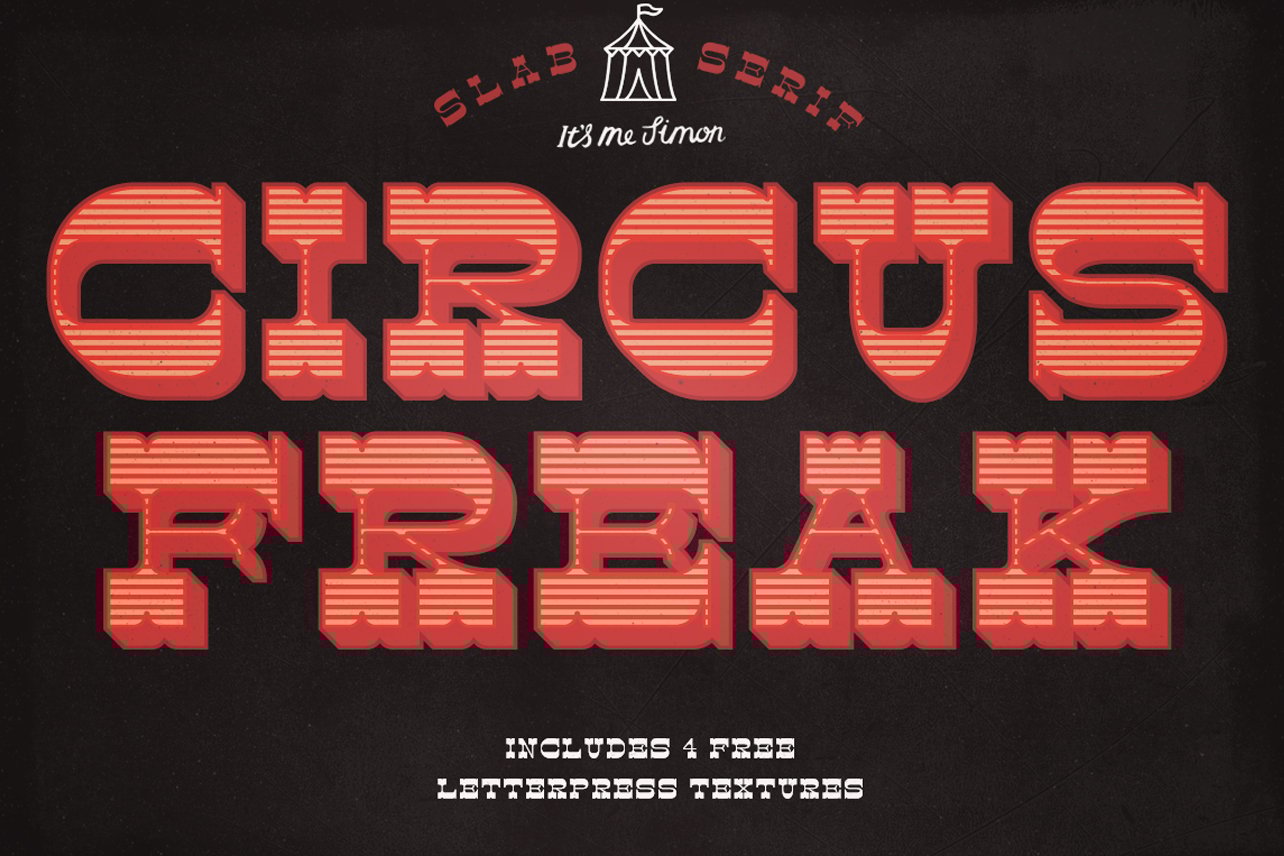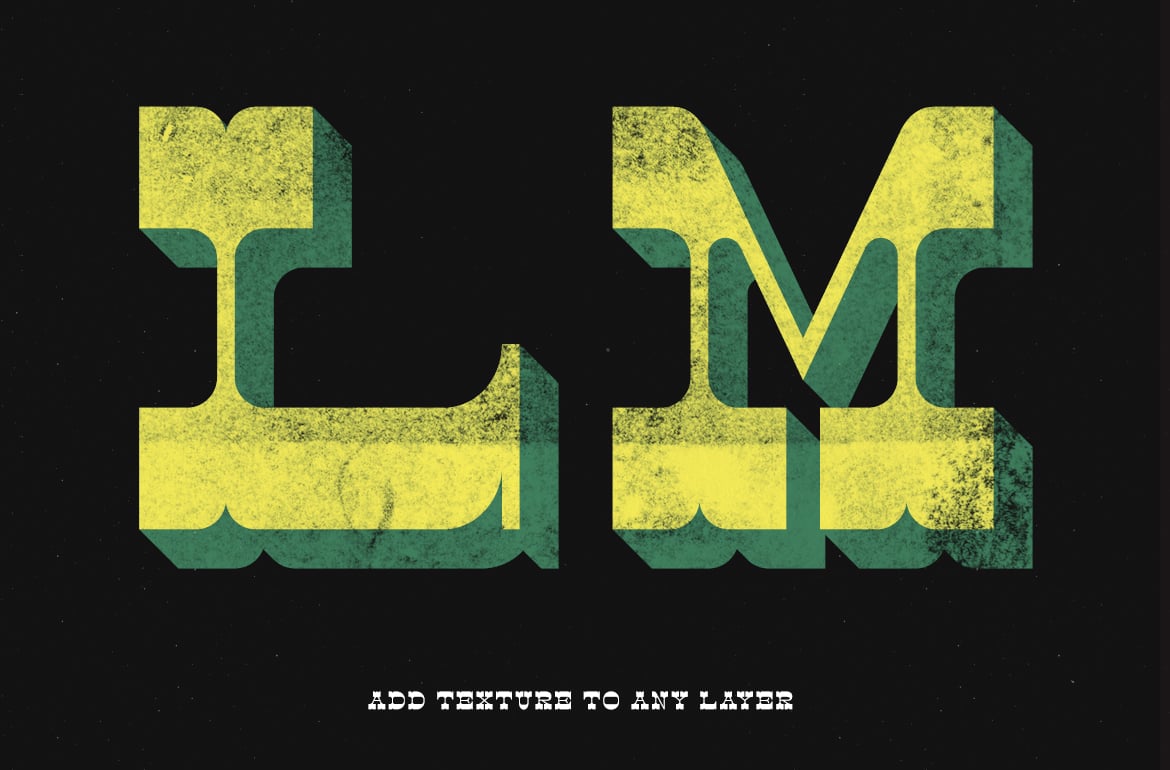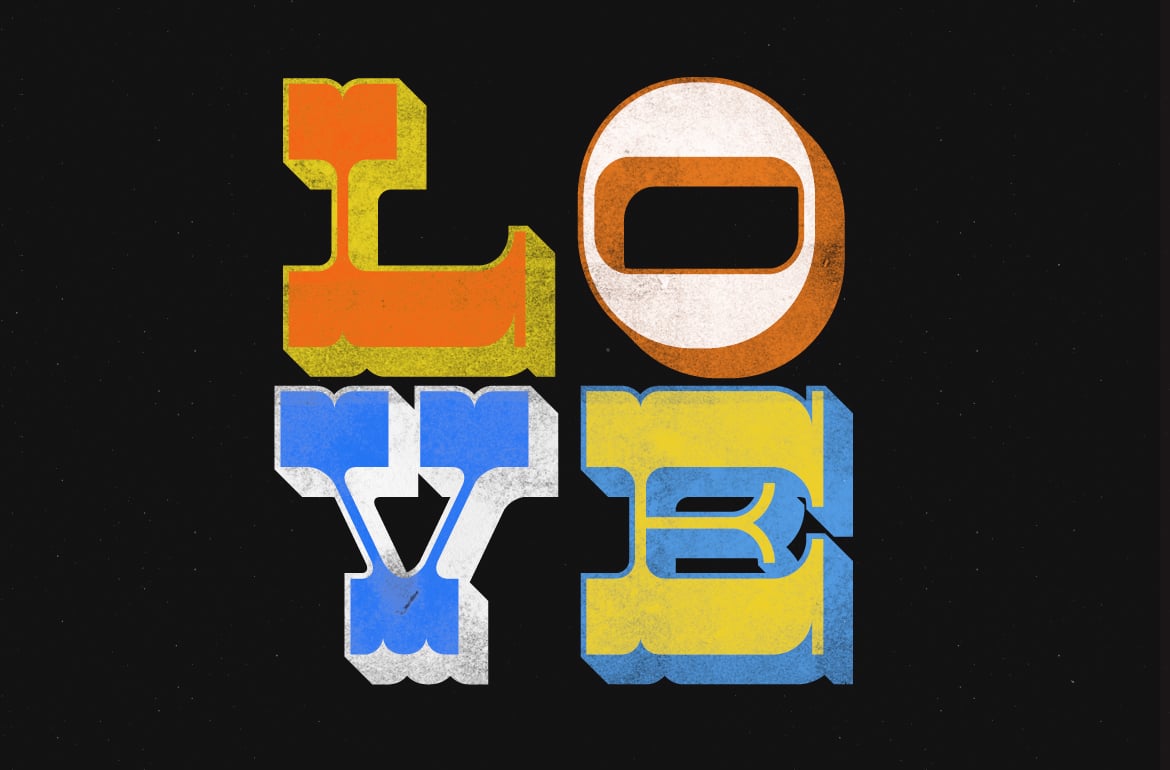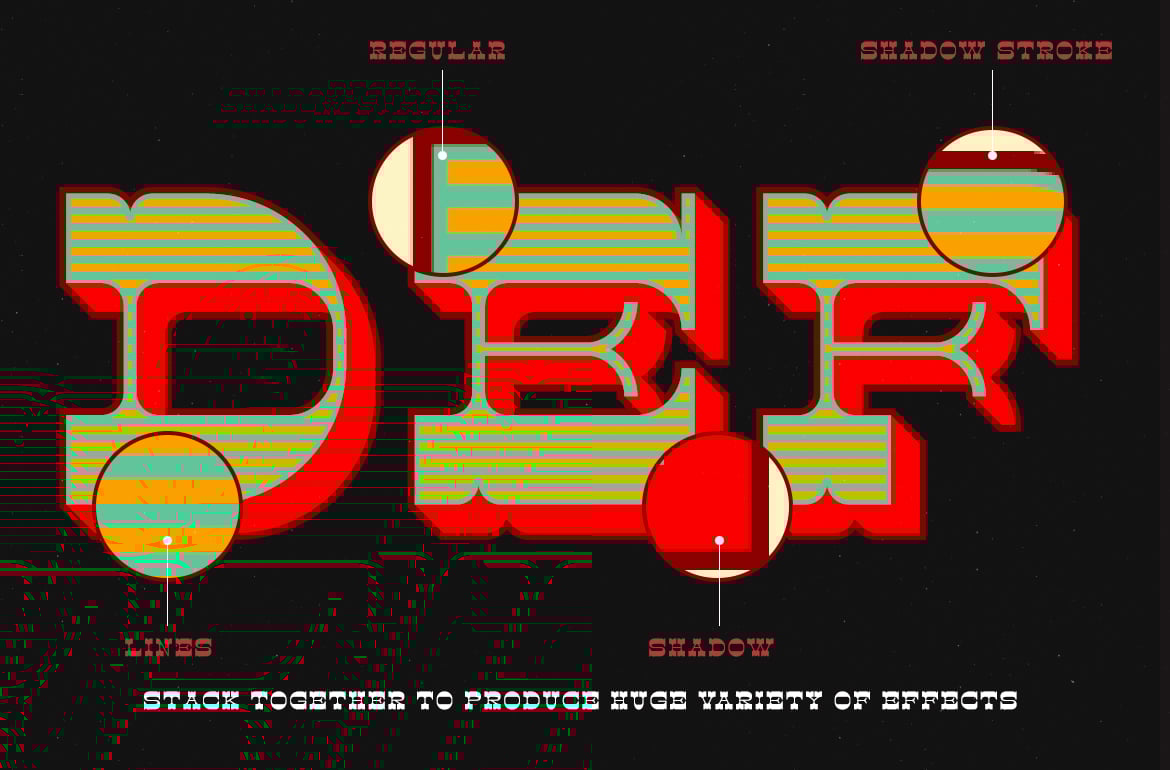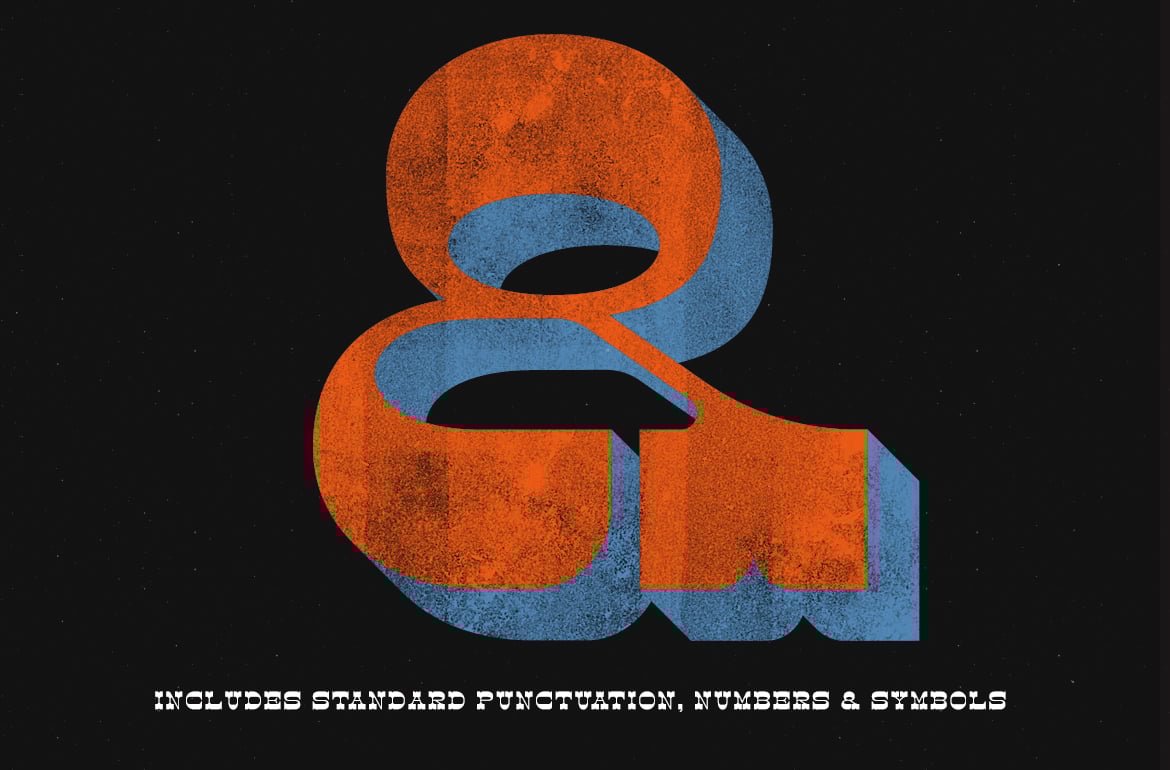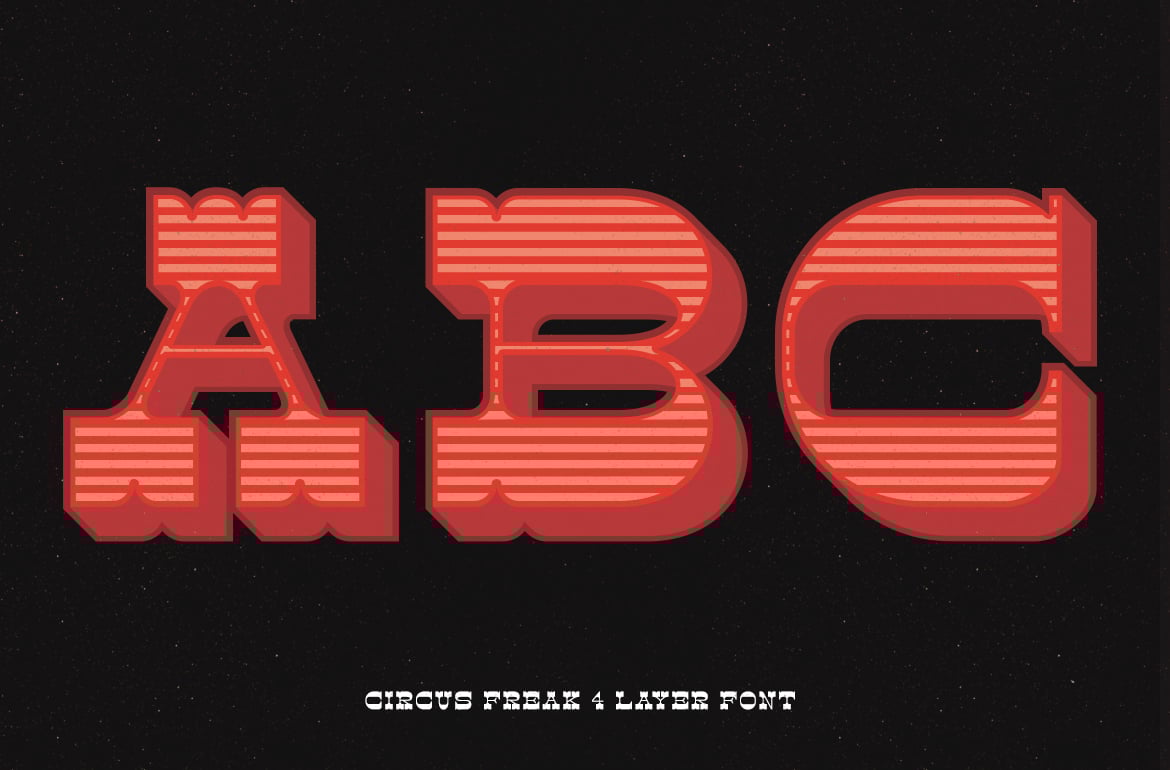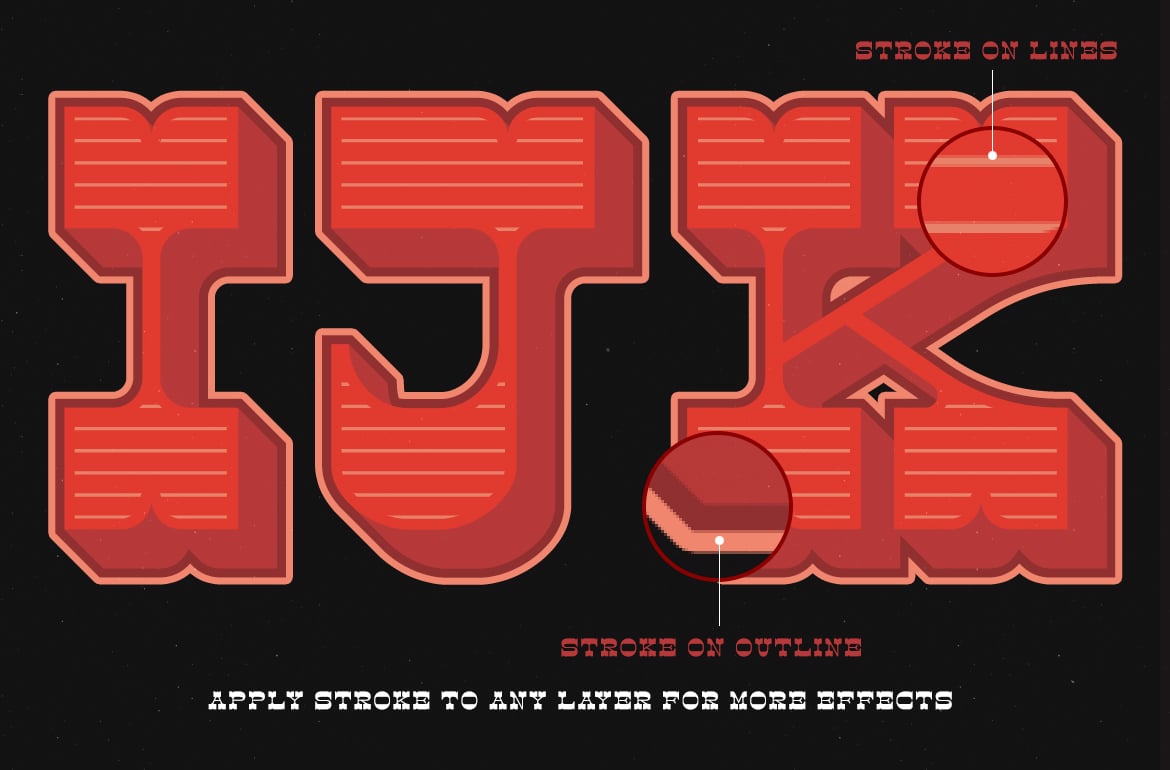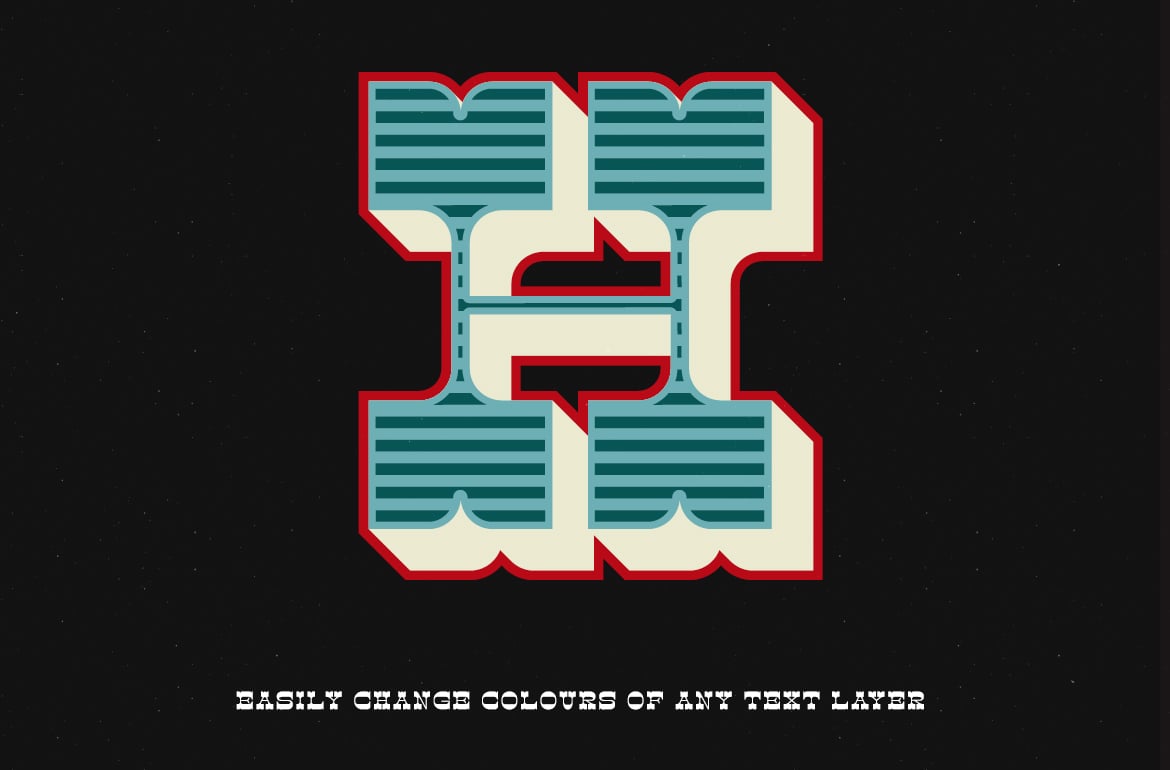
Circus Freak Font
Circus freak was partly inspired by the old American chromatic wood type from the late 1800’s, and my desire to create a chromatic typeface.
It has four styles that can be layered one on top of the other to get a chromatic colour effect reminiscent of vintage letterpress printing.
The four styles include
- Circus freak Regular
- Circus freak Lines
- Circus freak shadow
- Circus freak shadow stroke
You can also add an inner or an outer stroke to any of the layers to get even more effects.
Free textures included
In fact, I created 4 letterpress textures to be used with the typeface.
It’s old style western sensibility and thick slab serifs will add a dramatic period look to any design project.
It includes language support for eastern, central and western European countries, in total it has 345 glyphs.
The font includes
- Uppercase characters only
- Numbers and punctuation
- Symbols
- Support for Eastern, Central and Western European languages
- 4 Different styles
- 4 Letterpress high-resolution textures